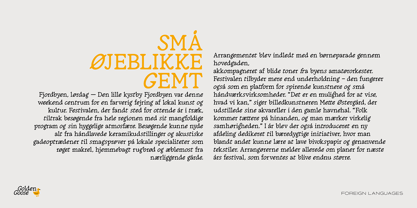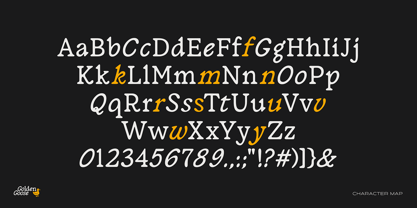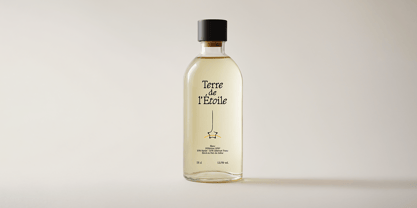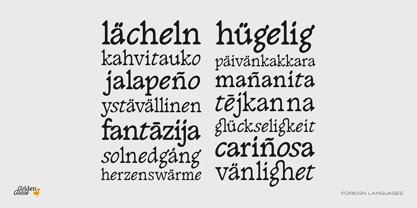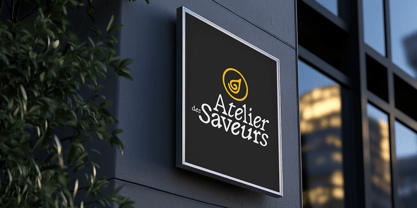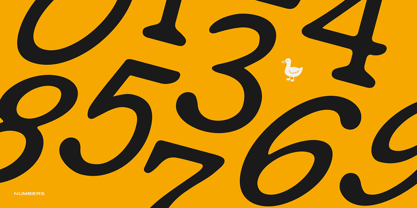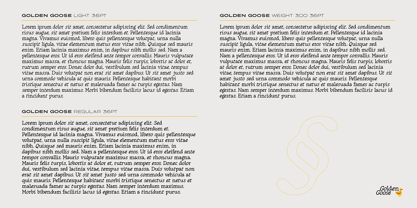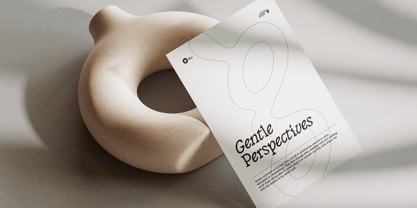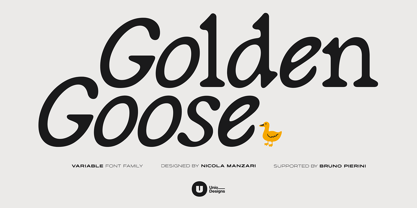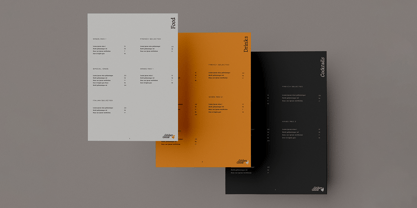
Golden Goose
The Golden Goose Font Family was designed by Nicola Manzari, Bruno Pierini and published by Unio Creative Solutions. Golden Goose contains 3 styles and family package options. More about this family
Golden Goose is a serif with a hand-made touch that reimagines the italic. Instead of offering a traditional oblique, it fuses italic behavior directly into the regular: all round letters adopt a calibrated slant that creates a distinctive, organic flow while preserving serif structure. The result is an original typographic voice with lively texture and confident readability, effective both in display and in print. Drawn with artisanal care for curves and terminals, Golden Goose balances energy and control. The built-in slant guides the eye along the line, while a solid serif skeleton anchors rhythm and spacing. A variable build with two core weights expands versatility, moving naturally from a light, airy tone to a more grounded, authoritative presence. Features Golden Goose includes 379 glyphs with carefully refined spacing for both text and display. OpenType features include Standard Ligatures, Discretionary Ligatures, Stylistic Alternates, Localized Forms, Fractions, Numerators, Denominators, and Ordinals. Language support Covers the Latin script with full Western and Central European diacritics, supporting most European languages. Use cases Perfect for branding and wordmarks with personality, editorial and packaging with dynamic flow, posters and titling that highlight the slanted rounds, and print identities that mix crafted warmth with precision.